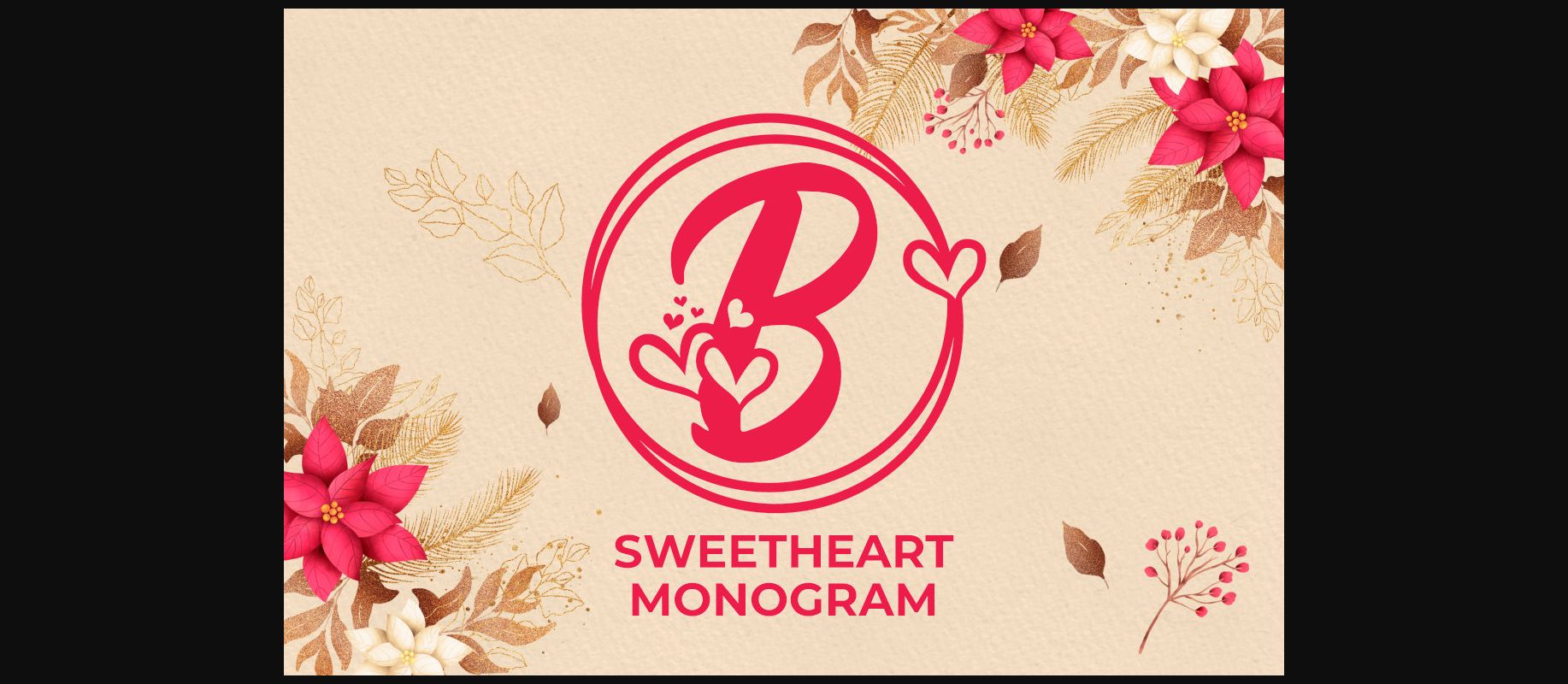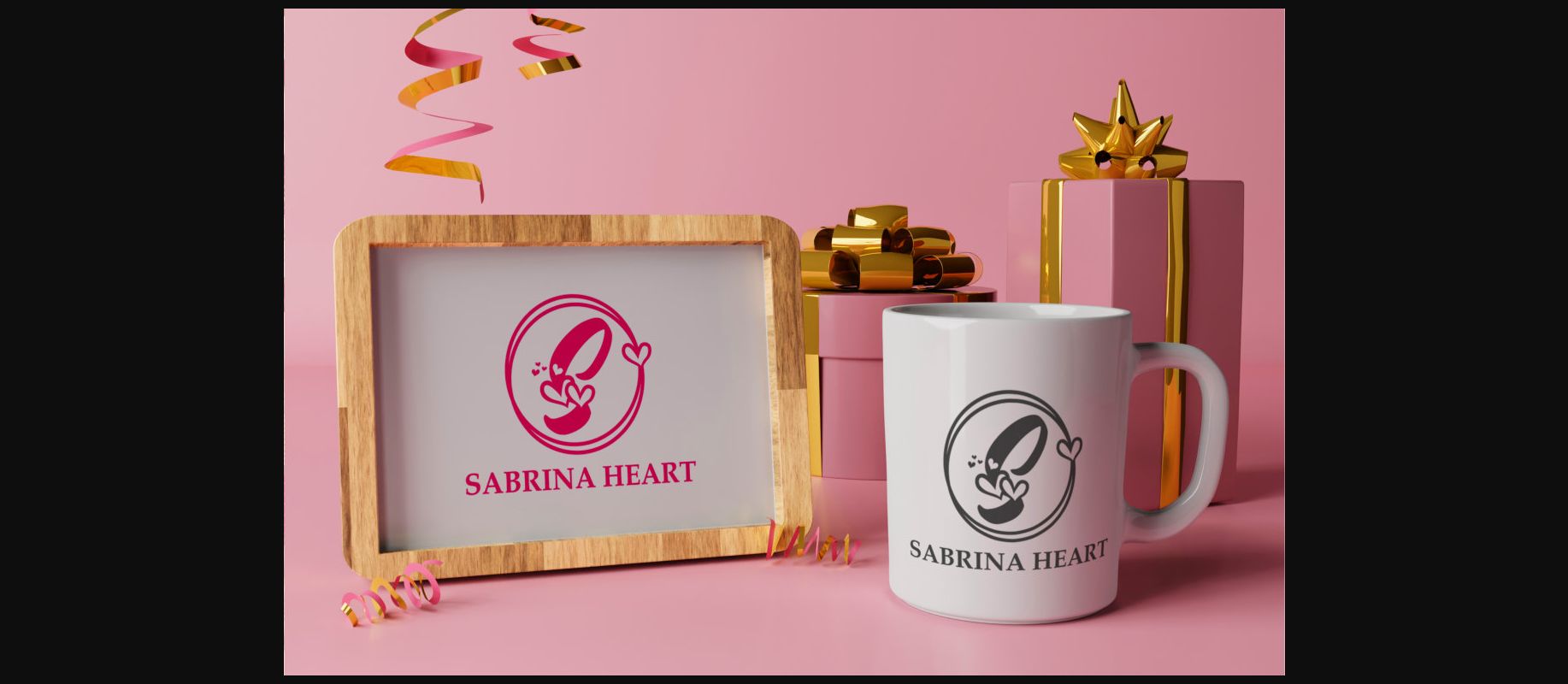
About Sweetheart Monogram Font
Sweetheart Monogram is a ravishing decorative font. Fall in love with its authentic feel and use it to create gorgeous wedding invitations, beautiful stationary art, eye-catching social media posts, and cute greeting cards.